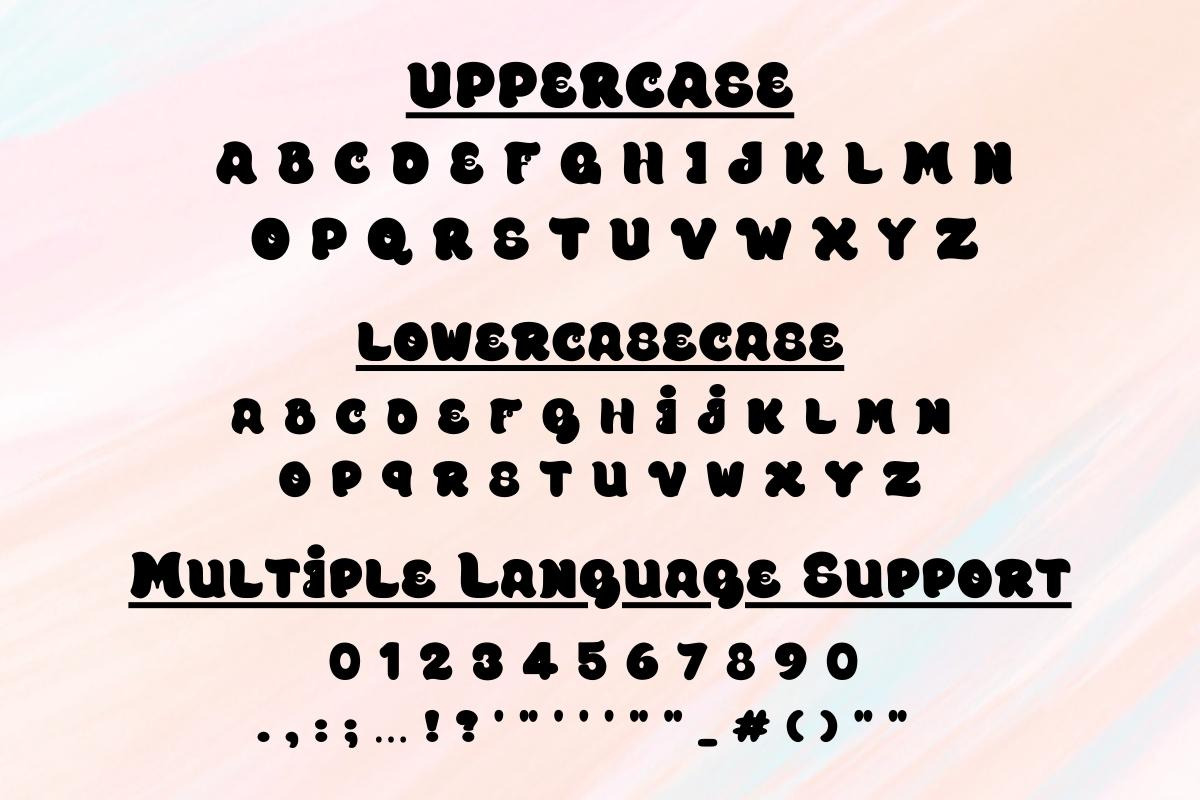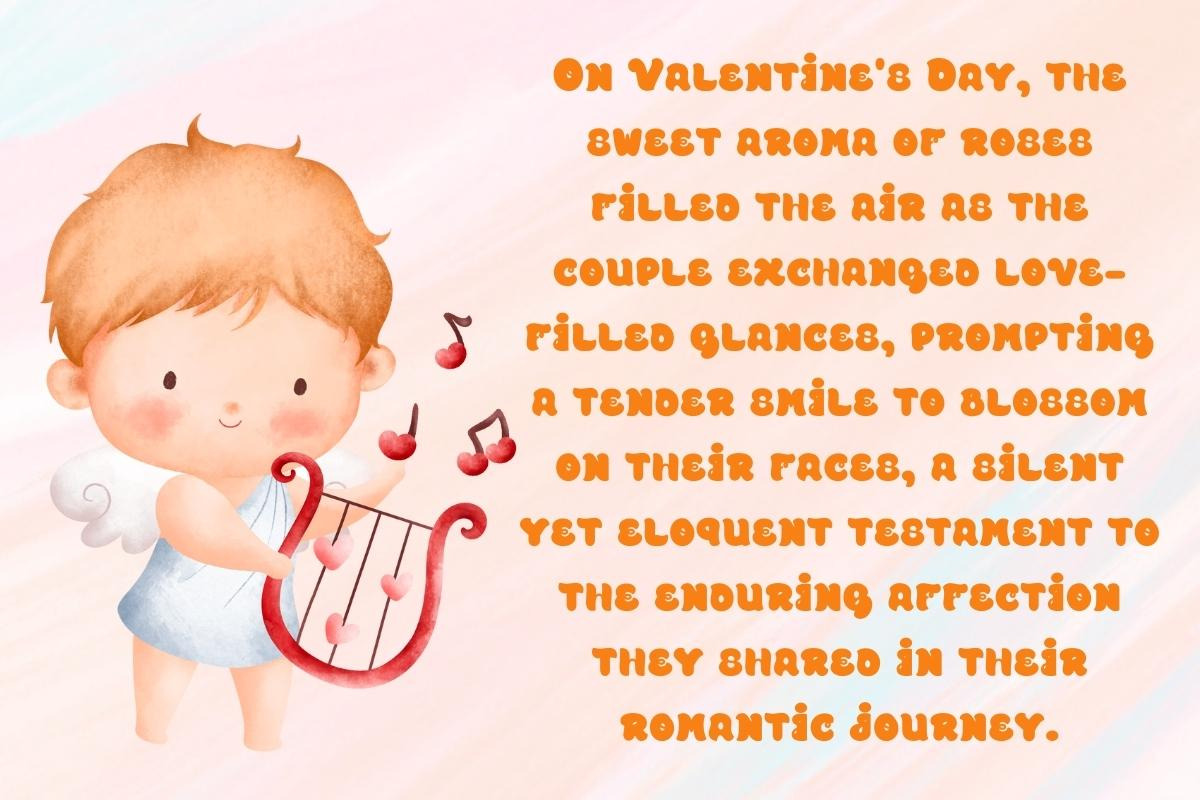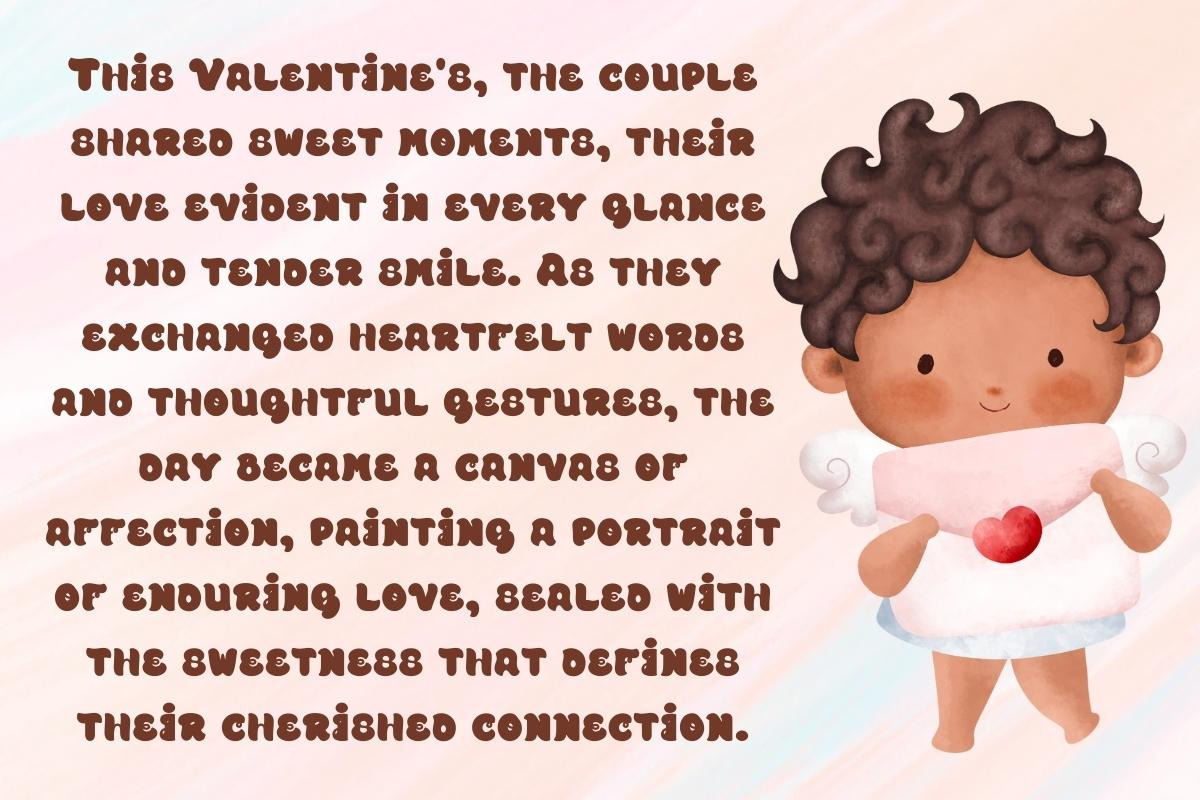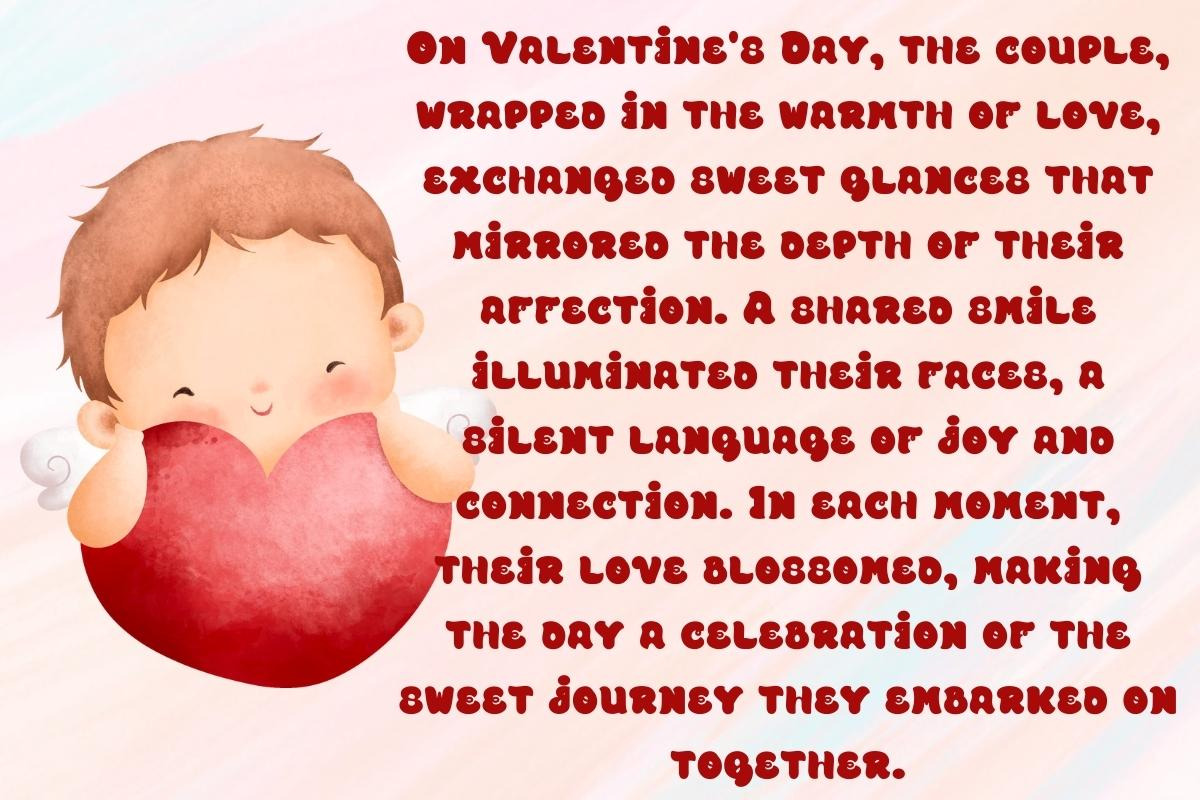
Sweet Valentine - Handwritting
Introducing Woodland Gang, a captivating script font that beautifully blends the organic charm of handwritten strokes with the bold impact of a display font. Immerse your designs in the enchanting allure of nature-inspired characters. Woodland Gang, a font that adds warmth and character to every creative endeavor.